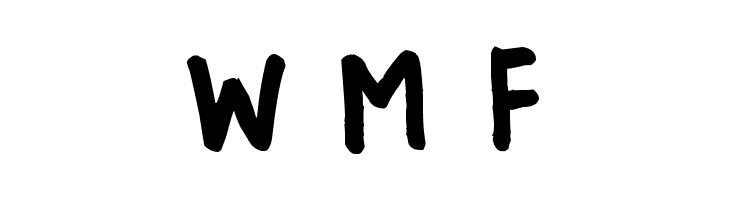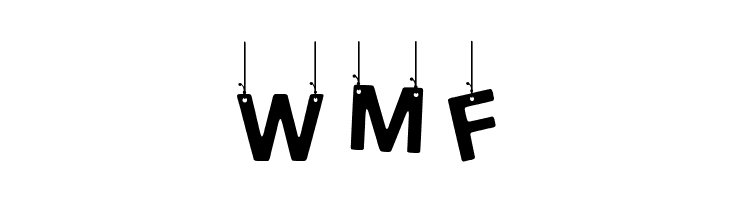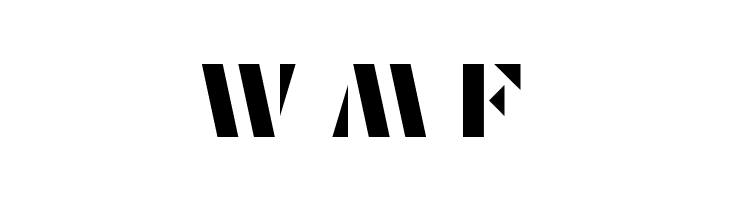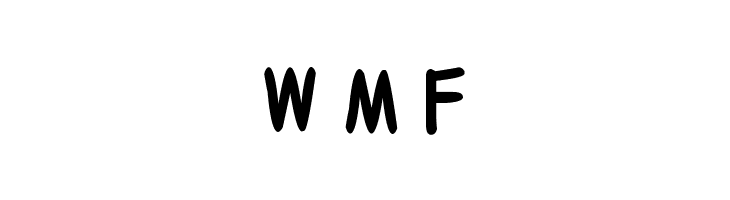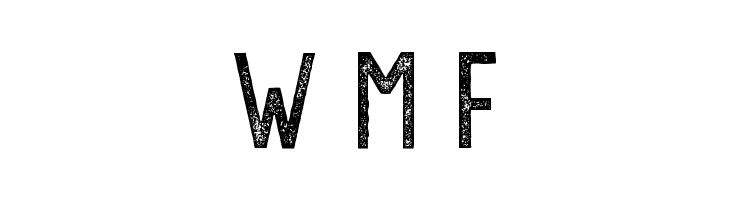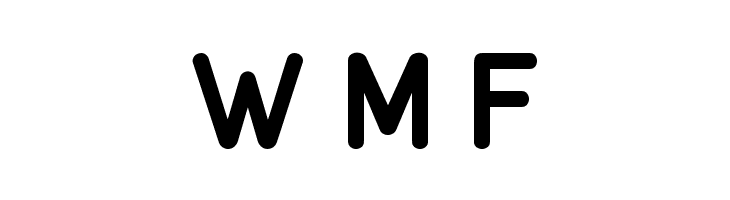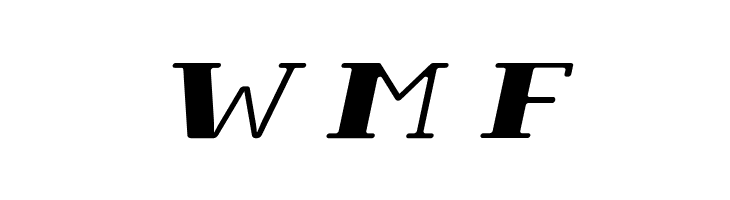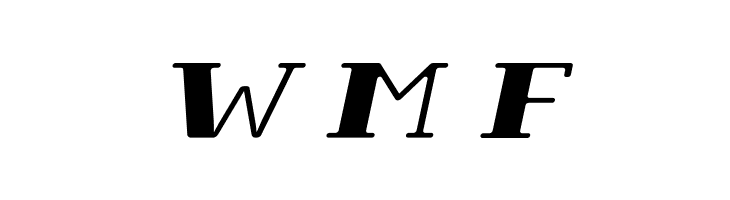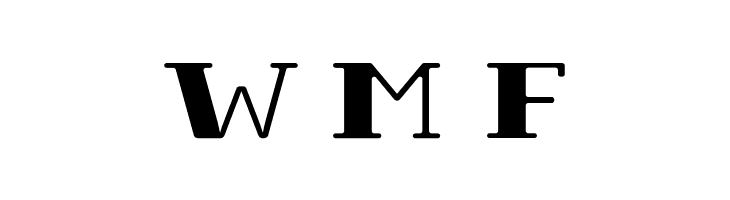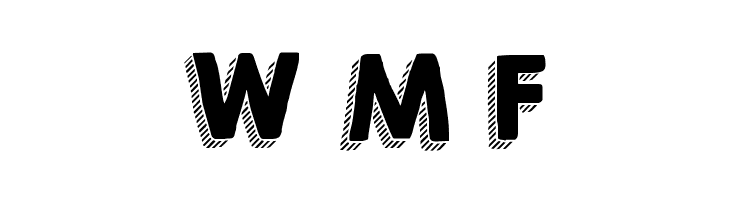
A bold, angular font with a futuristic and industrial design.
A bold, playful handwritten font with a casual and friendly vibe.
A bold, geometric stencil font with high contrast and industrial style.
A bold, playful font with rounded, hand-drawn characters.
A whimsical, curly, hand-drawn font with playful loops and swirls.
A display font featuring hand-drawn video game consoles as characters.
A bold, geometric font with outlined characters and a playful, modern style.
A bold, geometric font with a modern and impactful design.
A playful handwritten font with smooth, rounded strokes and a casual style.
A playful collection of decorative frames and shapes in bold silhouette style.
A bold, distressed font with a vintage, textured appearance.
A playful, rounded font with smooth curves and uniform stroke width.
A playful, bold font with rounded edges and thick strokes.
A bold, playful font with a unique shadow effect and rounded characters.
A playful, shadowed font with a bold and dynamic style.
A modern, geometric font with intricate line and dot details.
A bold, gothic-style font with sharp edges and tight spacing.